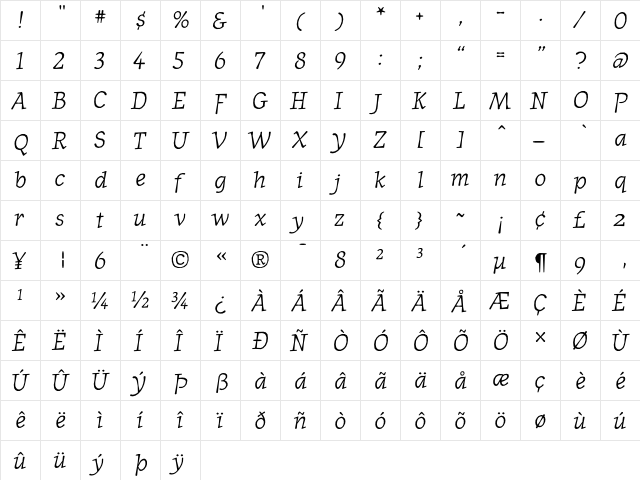
JournalItalic Regular
Design Context for JournalItalic Typeface
JournalItalic offers clean, dependable letterforms without strong stylistic allegiance, making it a practical choice for designers who need flexibility. Its italic angle brings a sense of urgency and motion to the letterforms.
Pro Tip: Try JournalItalic for annotation and caption copy alongside an upright companion — the contrast in angle creates a dynamic but ordered typographic system.